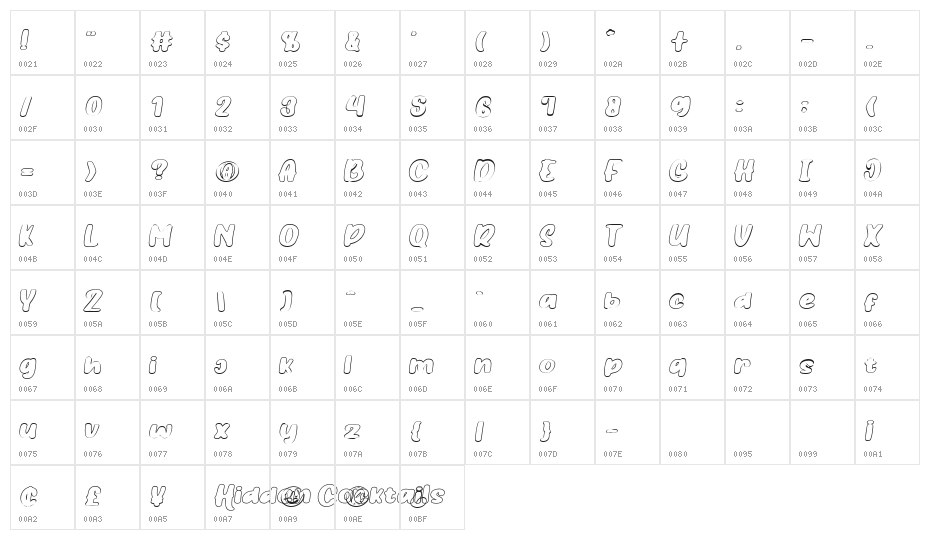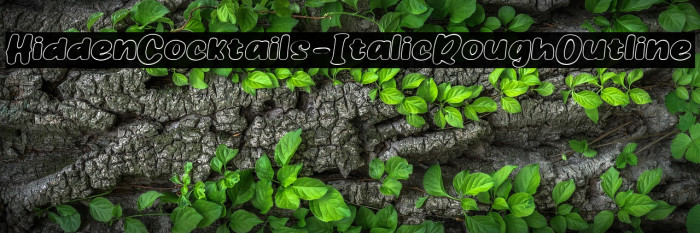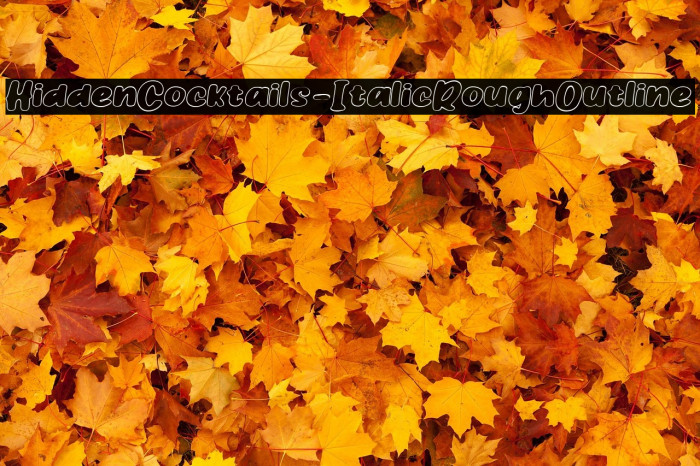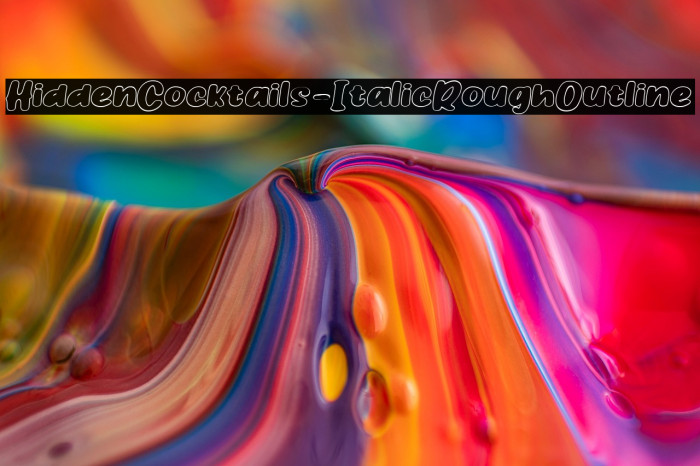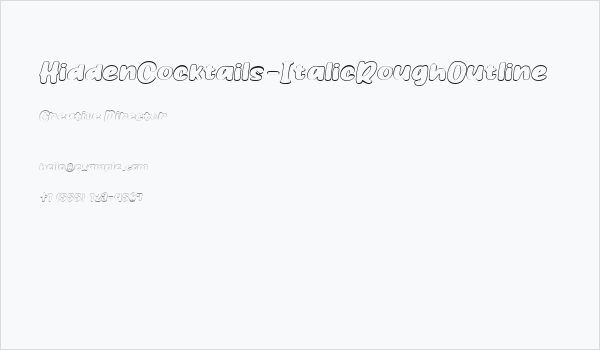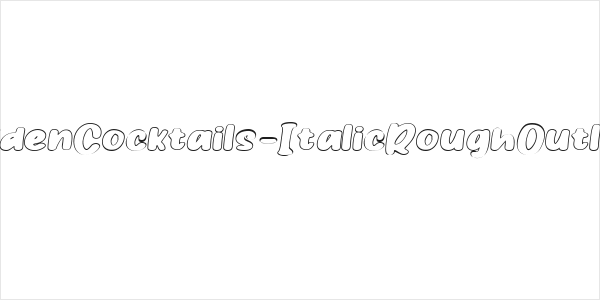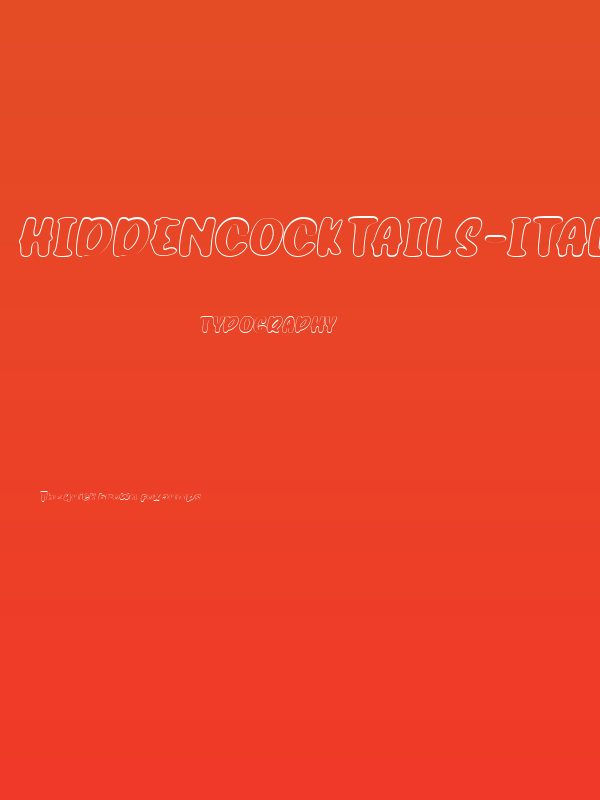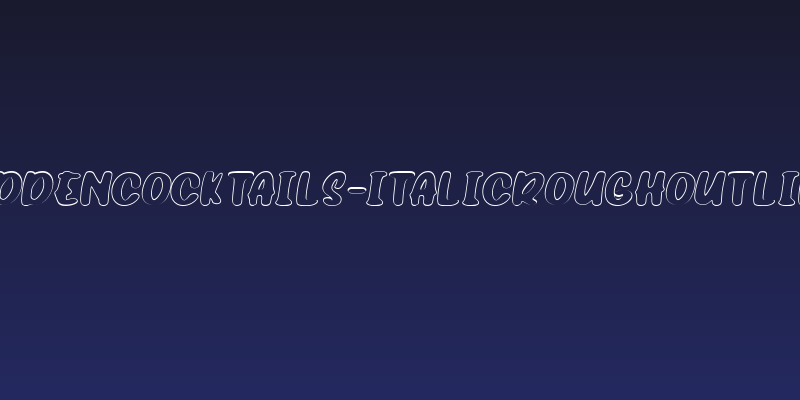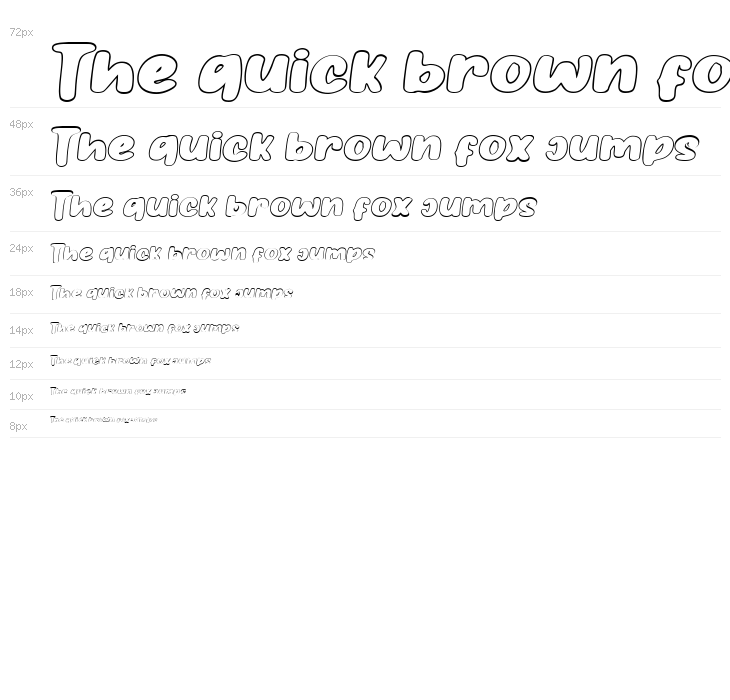
HiddenCocktails-ItalicRoughOutline Font
HiddenCocktails-ItalicRoughOutline Description
This playful and bold font features a rough outline style that gives it a unique and artistic flair. The characters are rounded and slightly inflated, creating a sense of fun and whimsy. The italic slant adds a dynamic and energetic feel, making it stand out in any design. The uppercase and lowercase letters maintain a consistent style, with smooth curves and a hand-drawn appearance. The numbers and special characters follow the same aesthetic, ensuring a cohesive look across all text elements. This font is perfect for projects that require a touch of creativity and personality.
| Overall Style | Playful and Artistic |
| Use Case | Headlines, Logos, Creative Projects |
| Proposed Projects | Ideal for children's books, playful branding, posters, and creative invitations. |